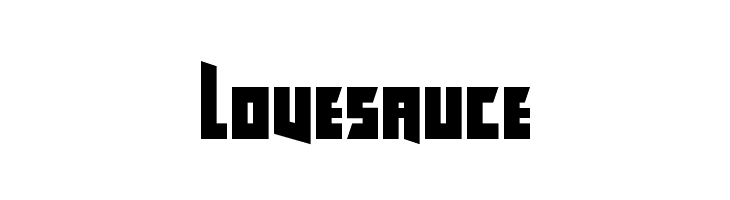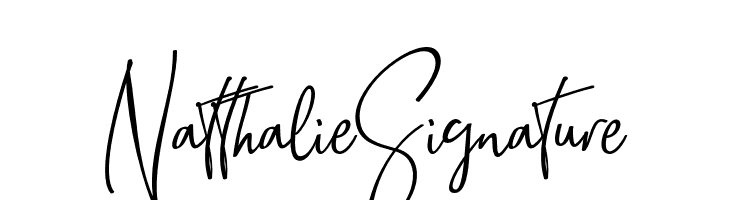
A bold, angular font with a geometric and futuristic style.
A wild, chaotic font with jagged, hand-drawn strokes.
A sleek, thin, and oblique font with a modern and minimalistic design.
A bold, playful font with a hand-drawn, cursive style and rounded edges.
A playful handwritten font with a casual and friendly style.
A bold, decorative font with toy soldier motifs embedded in each letter.
An elegant and sophisticated script font with flowing, interconnected letters.
A whimsical, cartoonish font featuring playful fruit characters.
A bold, geometric font with a modern, industrial style.